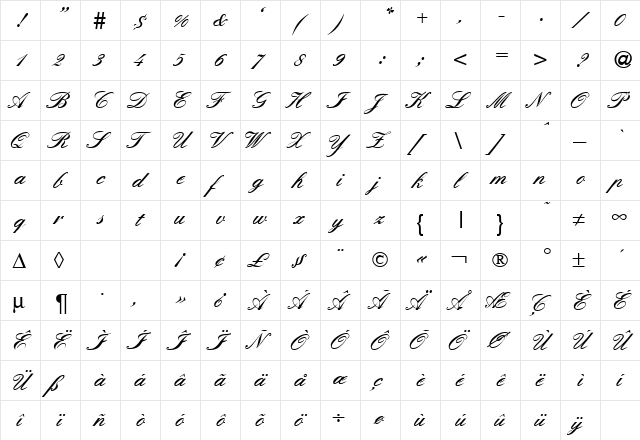
ElegantHandOne Bold
Design Context for ElegantHandOne Typeface
ElegantHandOne brings a calligraphic fluidity to the page — its connecting strokes and expressive curves give it an unmistakably human quality. Its bold stroke weight gives it real presence on the page.
Font Pairing: Combine ElegantHandOne with a simple geometric sans for maximum contrast — the tension between flowing curves and clean structure is a classic typographic pairing.
Pro Tip: Pair ElegantHandOne with a clean sans-serif for supporting text. The contrast between fluid script and geometric structure creates an elegant typographic hierarchy.